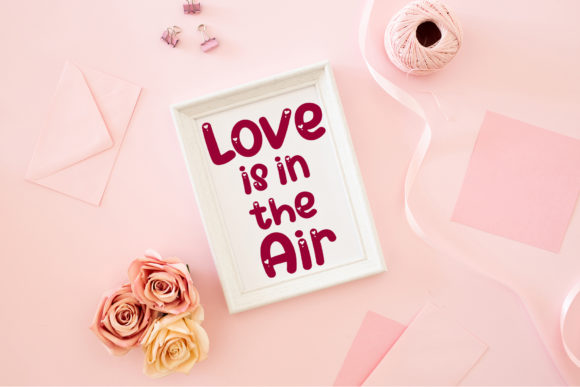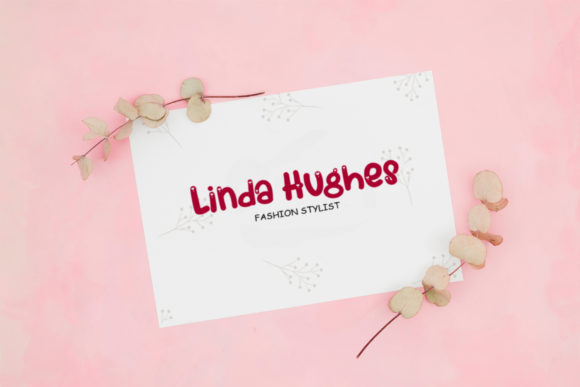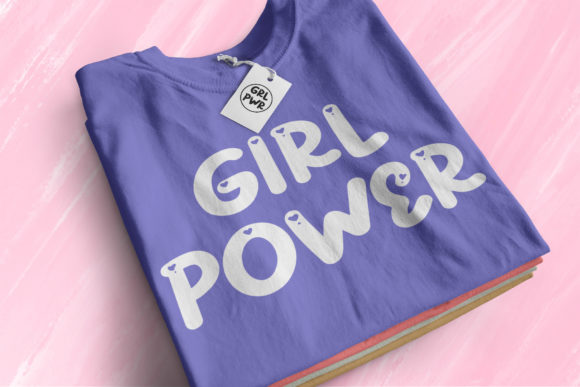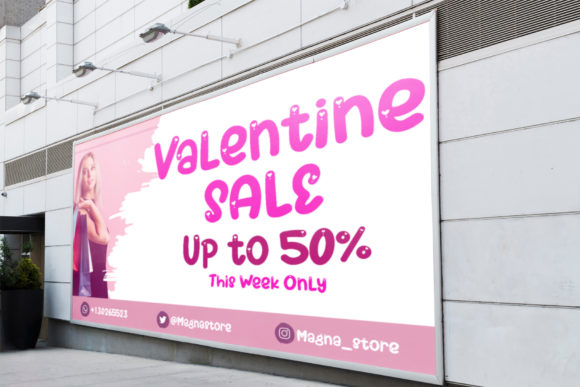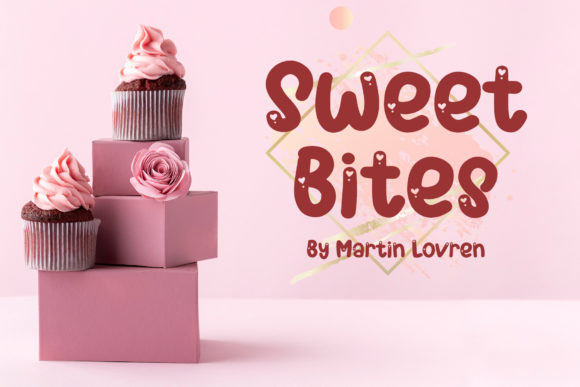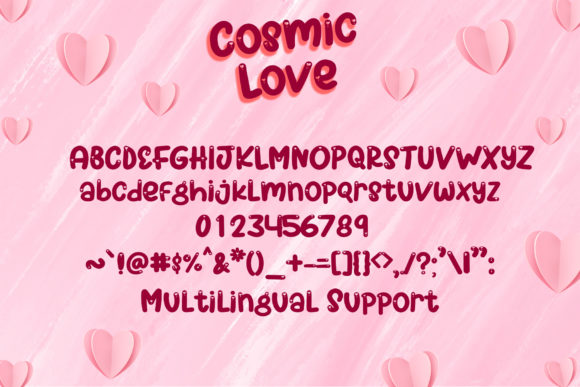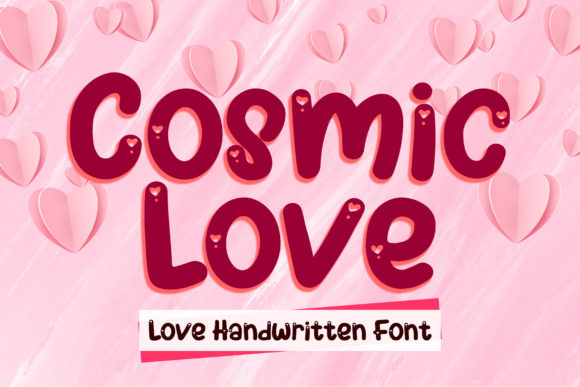
Cosmic Love Font: The Perfect Addition to Your Design Arsenal
Are you a designer or crafter looking for a font that can add a touch of romance and whimsy to your projects? Look no further than the Cosmic Love Font. This bold and lovely display font is perfect for a variety of design applications, from wedding invitations and Valentine’s Day cards to craft projects and DIY signage.
What is Cosmic Love Font?
Cosmic Love Font is a romantic-themed display font that is simple, yet elegant. Its bold and lovely design makes it perfect for adding a touch of personality to your designs. The font is easy to use and can be paired with a variety of other fonts and design elements to create a unique and eye-catching look.
Key Features of Cosmic Love Font
- Bold and Lovely Design: Cosmic Love Font features a bold and lovely design that is perfect for making a statement.
- Romantic Theme: The font’s romantic theme makes it perfect for wedding invitations, Valentine’s Day cards, and other romantic designs.
- Simple and Easy to Use: The font is simple and easy to use, making it perfect for designers and crafters of all skill levels.
- Versatile: Cosmic Love Font can be used for a variety of design applications, from digital designs to print projects.
How to Use Cosmic Love Font
Cosmic Love Font is easy to use and can be paired with a variety of other fonts and design elements to create a unique and eye-catching look. Here are a few ways you can use Cosmic Love Font in your designs:
- Wedding Invitations: Use Cosmic Love Font to create beautiful and romantic wedding invitations that will set the tone for the big day.
- Valentine’s Day Cards: Create romantic and personalized Valentine’s Day cards using Cosmic Love Font.
- Craft Projects: Use Cosmic Love Font to add a touch of personality to your craft projects, such as DIY signage, scrapbooking, and more.
- Digital Designs: Use Cosmic Love Font in your digital designs, such as social media graphics, blog posts, and more.
Tips for Pairing Cosmic Love Font with Other Design Elements
Pairing Cosmic Love Font with other design elements can help to create a unique and eye-catching look. Here are a few tips for pairing Cosmic Love Font with other design elements:
- Pair with Script Fonts: Pair Cosmic Love Font with script fonts for a romantic and elegant look.
- Pair with Bold Colors: Pair Cosmic Love Font with bold colors to create a bold and eye-catching look.
- Pair with Whimsical Illustrations: Pair Cosmic Love Font with whimsical illustrations to create a playful and romantic look.
Cosmic Love Font is a bold and lovely display font that is perfect for designers and crafters looking to add a touch of romance and whimsy to their projects. With its simple and easy-to-use design, Cosmic Love Font is perfect for a variety of design applications, from wedding invitations and Valentine’s Day cards to craft projects and DIY signage. By pairing Cosmic Love Font with other design elements, you can create a unique and eye-catching look that will make your designs stand out.
In conclusion, Cosmic Love Font is a beautiful and versatile font that can add a touch of personality to your designs. Whether you’re a designer or crafter, Cosmic Love Font is a great addition to your design arsenal.